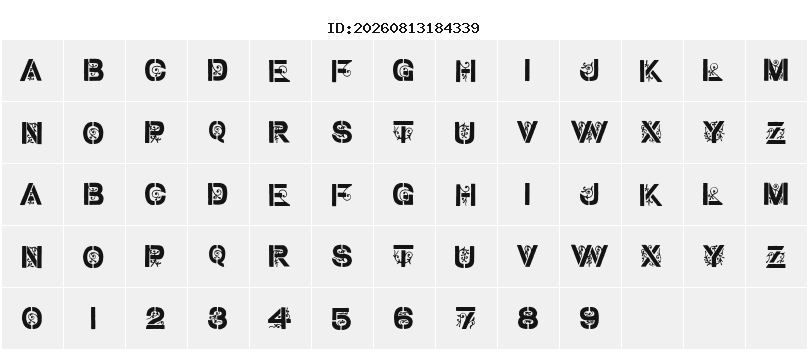
• Font Name: stencil gothic
• Manufacturer: dker
About stencil gothic.ttf
stencil gothic.ttf is a modern, elegant sans-serif font designed for ultimate readability and visual harmony. Perfect for branding, headlines, web design, and print materials.